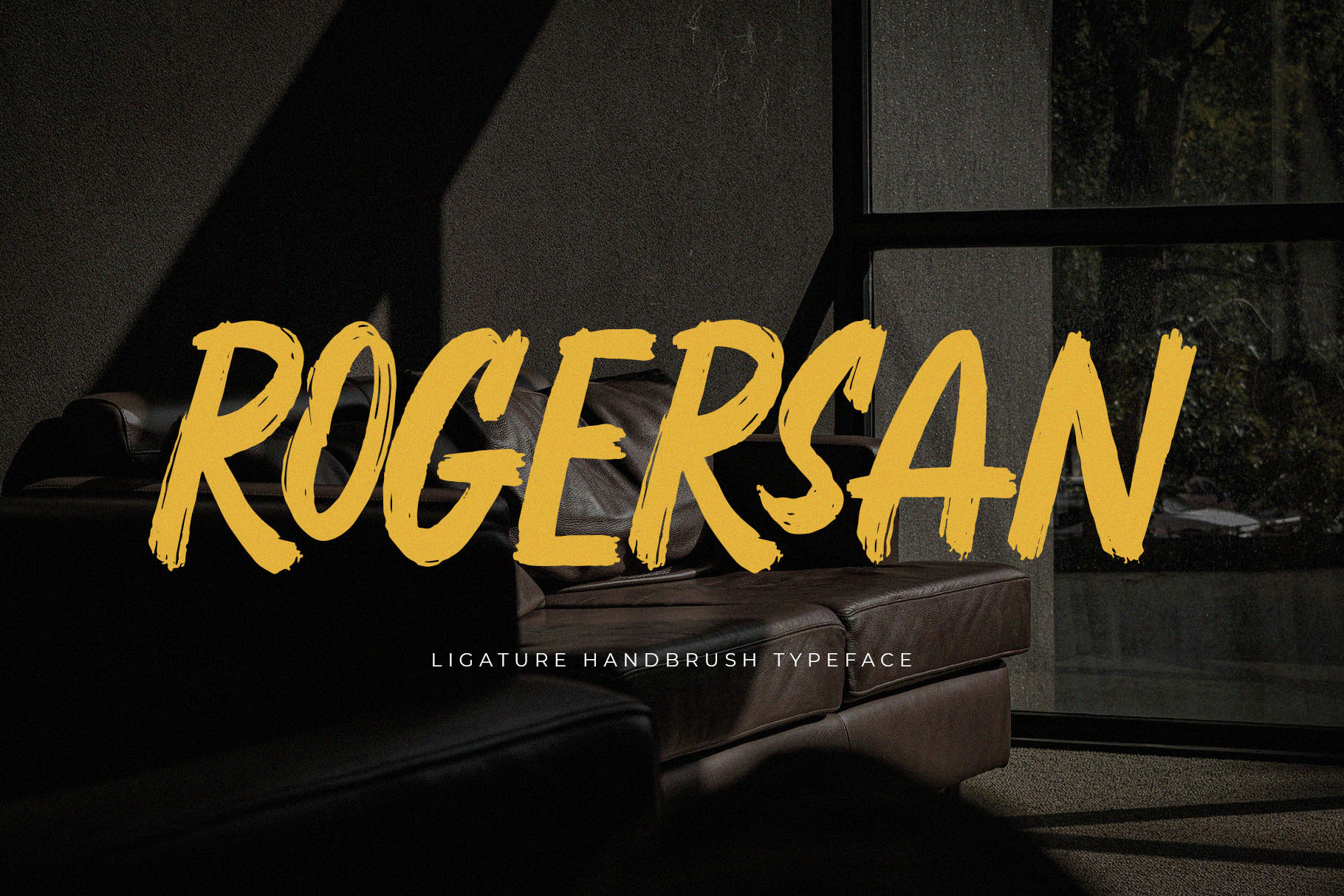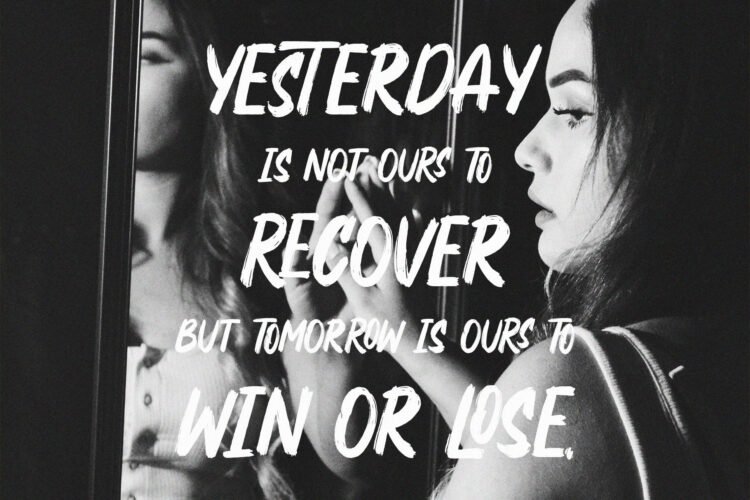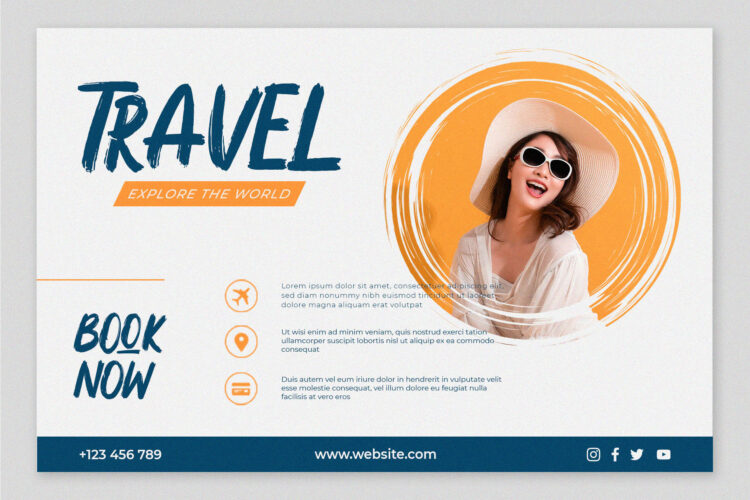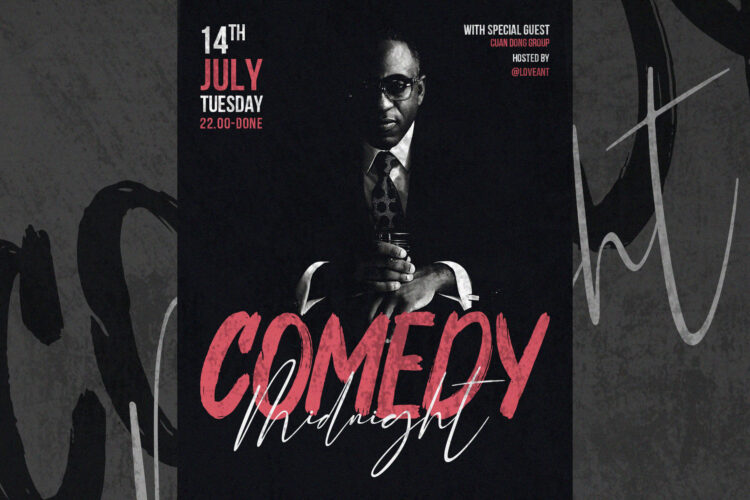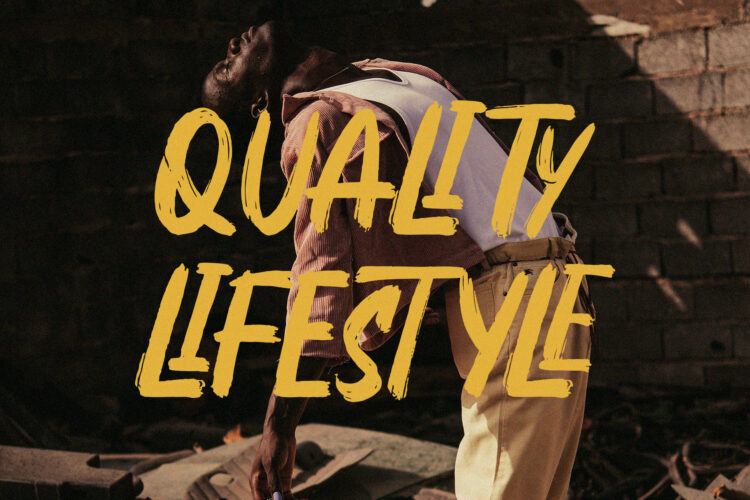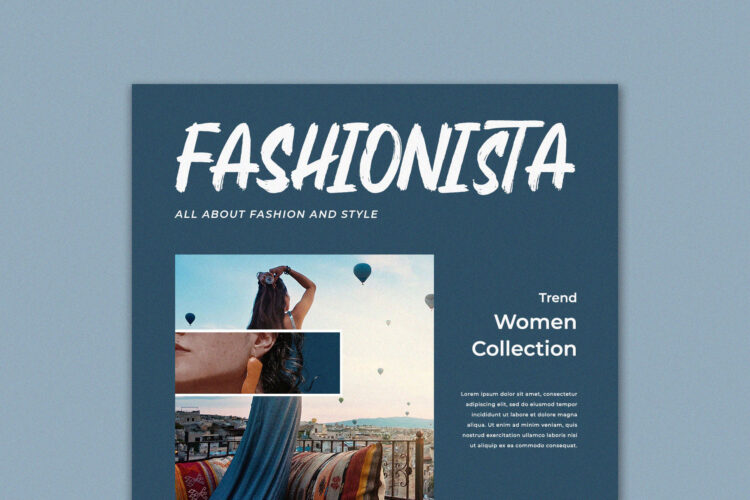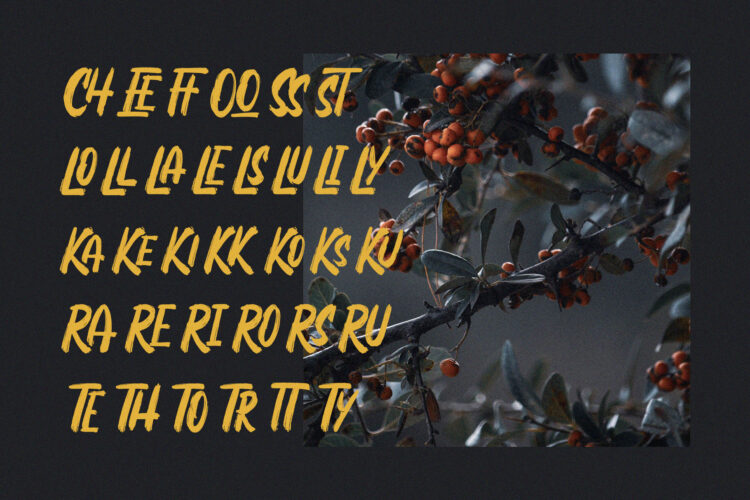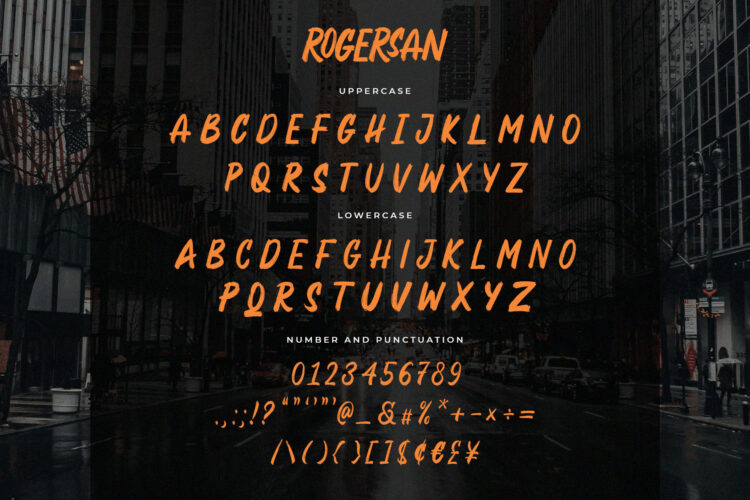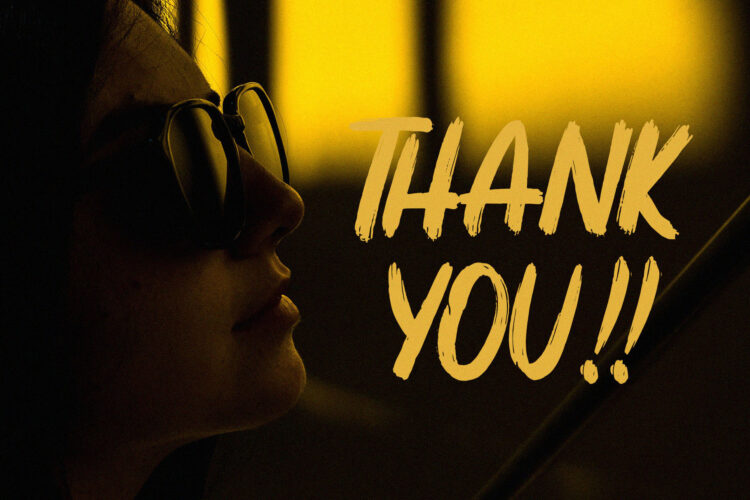
Introducing Rogersan – a brand new brush font with tons of ligatures and stylistic alternates.
Rogersan would be perfect for posters, packaging, advertising, headlines, branding, signage and anything where you want that urban look and feel.
Rogersan Features :
– Ligatures
– Multilanguage
– Alternates
Rogersan – Stylish Brush Font